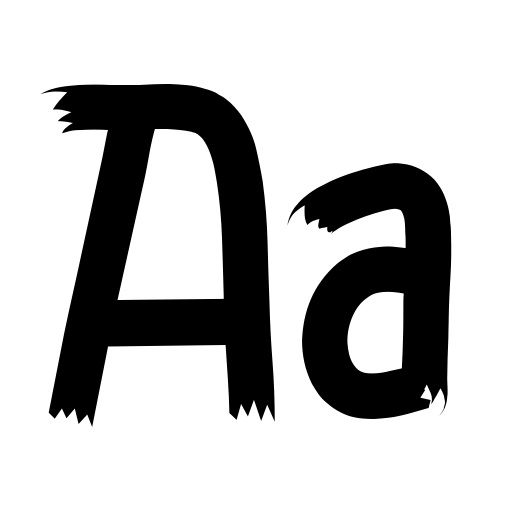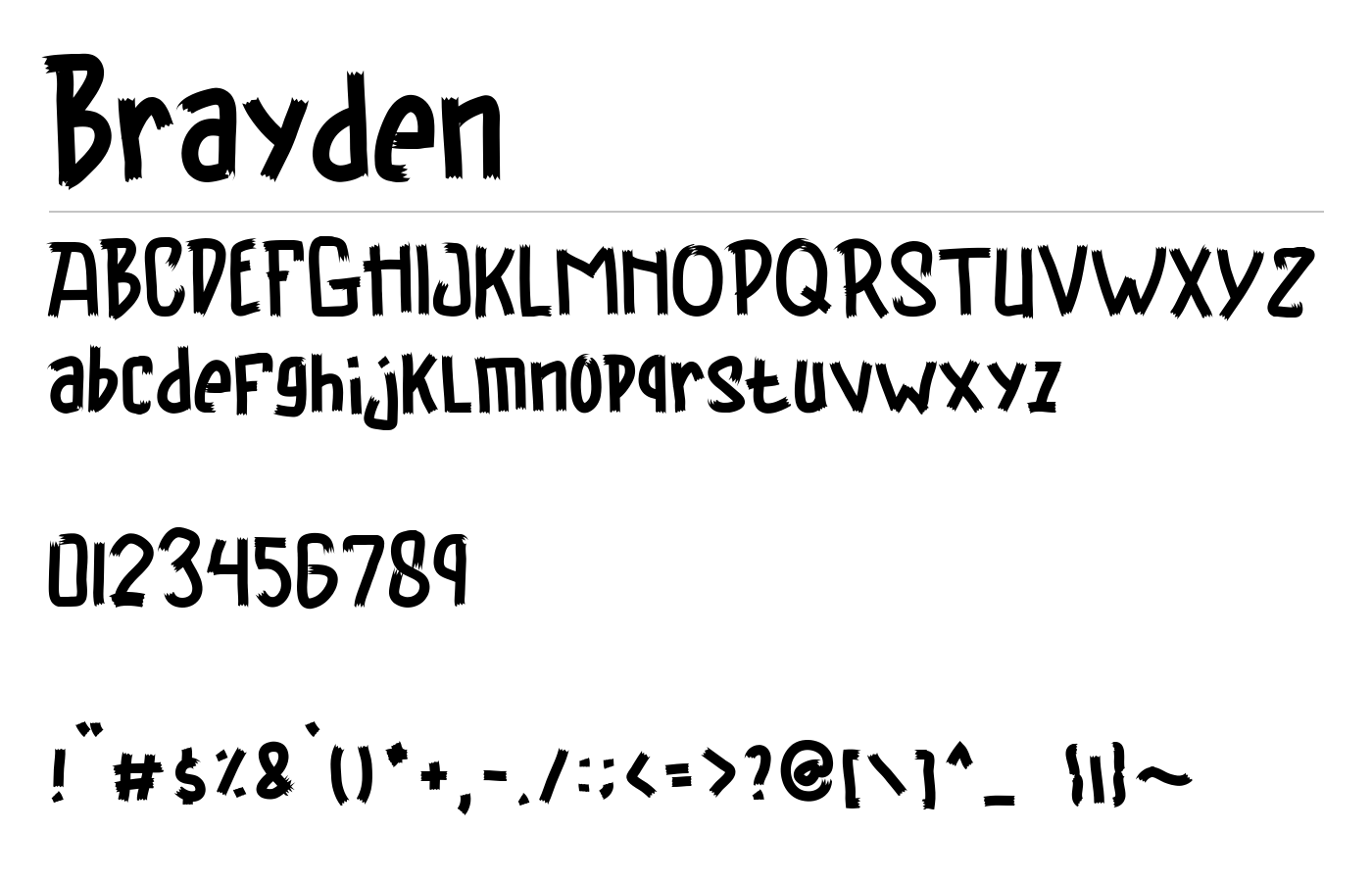
Brayden is a playful and bold sans serif font with a quirky hand-drawn feel, featuring irregular edges that give it a textured, brush-like appearance. Its tall, narrow letterforms and whimsical style make it ideal for creative projects that want to stand out, such as posters, children’s books, or casual branding. This unique typeface adds a fun, energetic personality while maintaining good readability.
Brayden Font